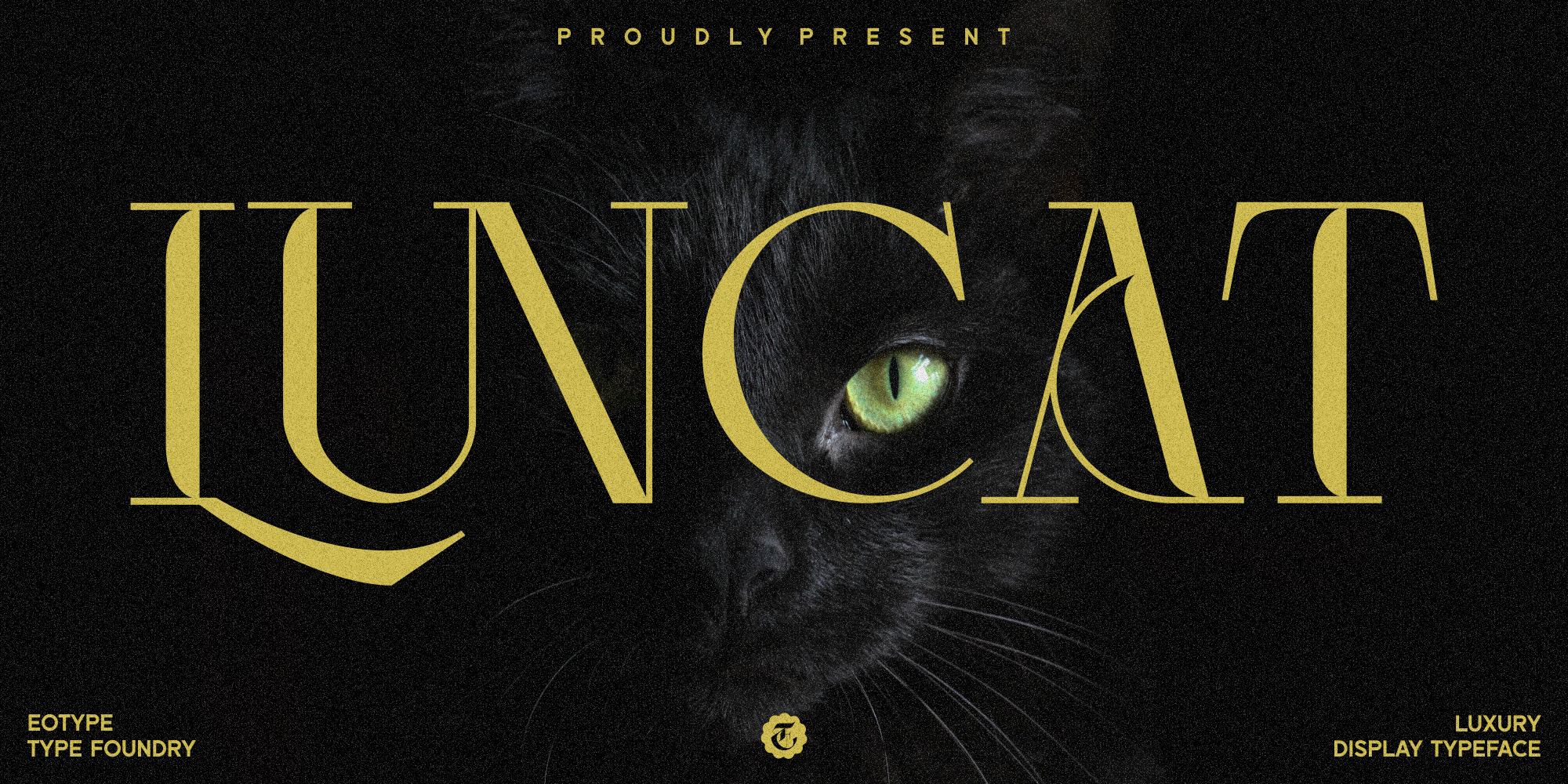
Luncat Font excels in mystical night-themed branding, lunar cycle calendars, celestial jewelry packaging, nighttime event posters, astronomy club materials, moonlit photography watermarks, dream journal covers, and nocturnal wildlife documentaries. Its ethereal quality makes it perfect for projects celebrating the magic of nighttime and celestial wonder.
What makes Luncat Font exciting is its unique ability to capture the mysterious allure of moonlit nights through elegant typography. The gracefully curved letterforms evoke the gentle glow of lunar light with flowing strokes that suggest movement and grace. This typeface embodies nocturnal elegance and celestial beauty, making every design feel enchanting and otherworldly.
Luncat Font family includes Regular, Bold, Light, Italic, Condensed, and Glow variations, providing designers with versatile options for creating captivating lunar-inspired visual communications.
Illuminate your creative projects with the celestial beauty of Luncat Font Free Download. This enchanting typeface brings moonlit magic to any design endeavor, whether you're developing brand identities for wellness centers, crafting promotional materials for nighttime events, or designing graphics for spiritual organizations. The font's lunar architecture and mystical presence make it essential for projects requiring ethereal sophistication. Luncat Font seamlessly blends celestial inspiration with contemporary design principles, making it ideal for brands seeking to evoke wonder and tranquility. The gracefully designed characters ensure optimal readability while maintaining the font's magical qualities, delivering designs that captivate audiences and create memorable connections through the timeless appeal of lunar mystique.